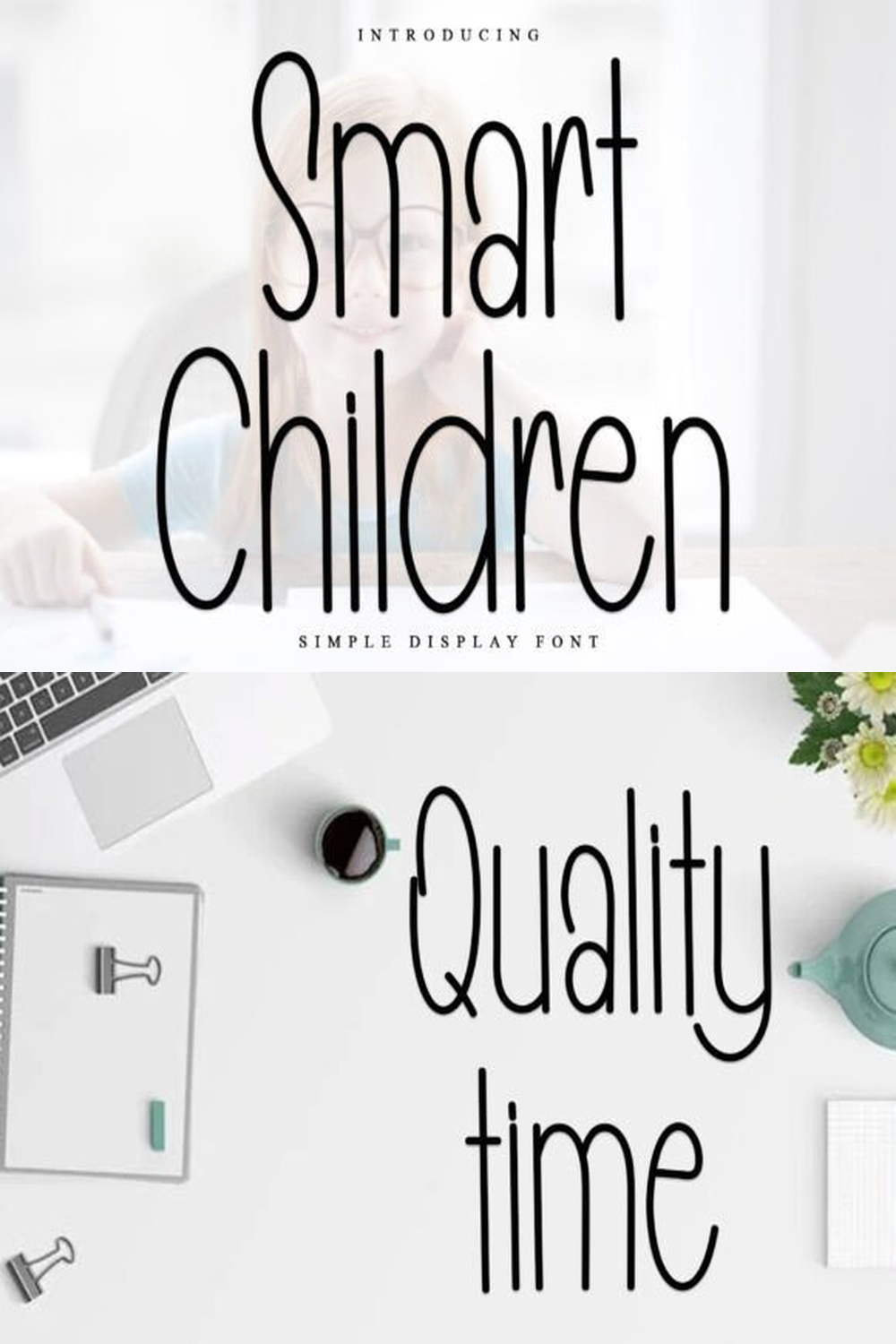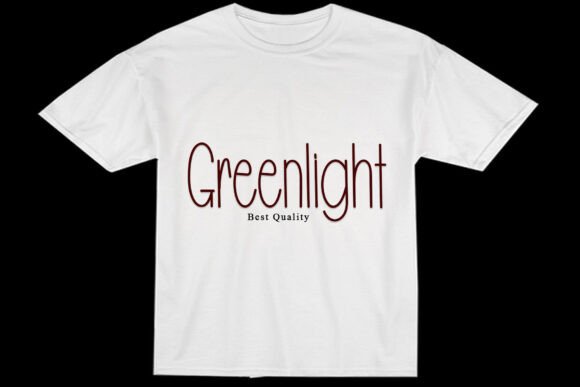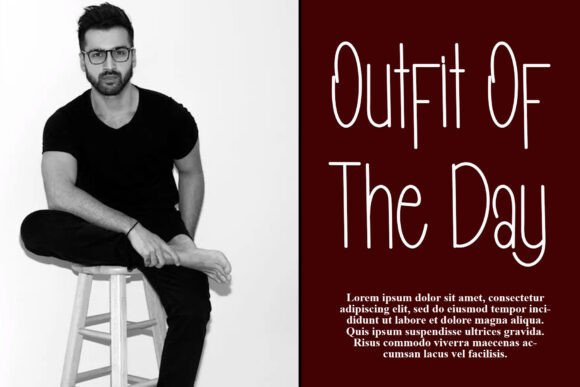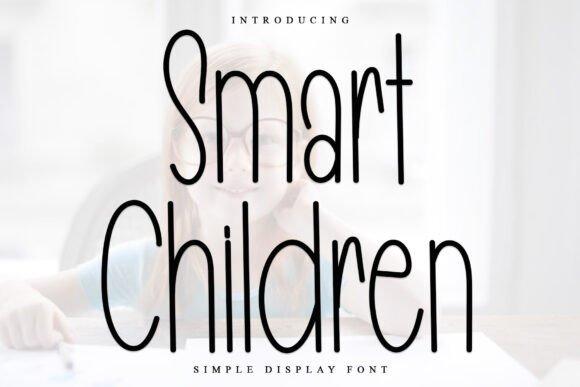
Smart Children Font
About the Smart Children Font
Get ready to be inspired by Smart Children Font, a fresh and dynamic typeface for modern creators. Smart Children is a stylish beautiful and elegant font with a contemporary atmosphere and impeccable form, inspired by a timeless classic calligraphy. Balanced and varied, this font was designed to enhance the beauty of your projects.